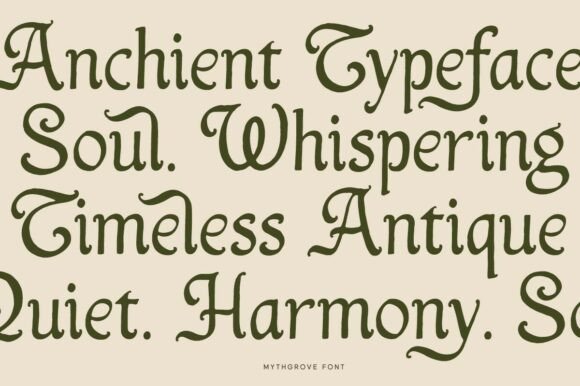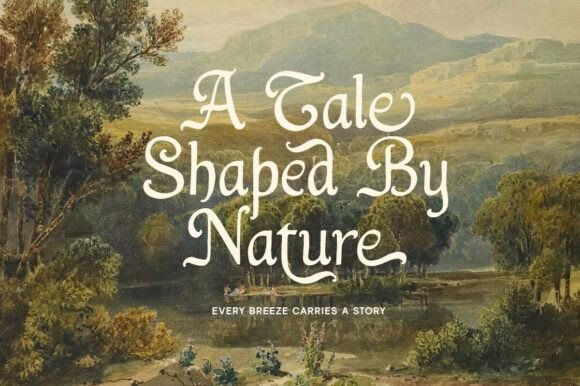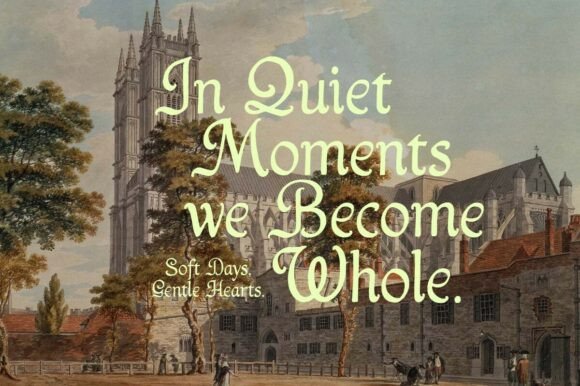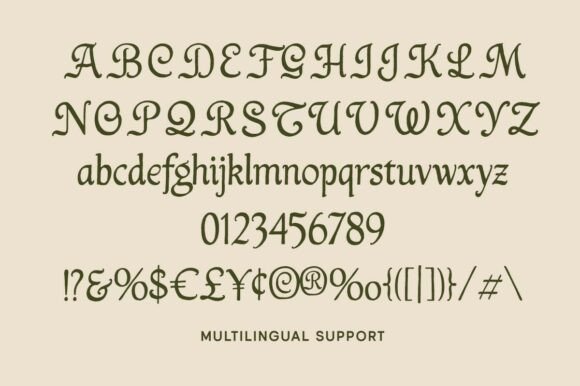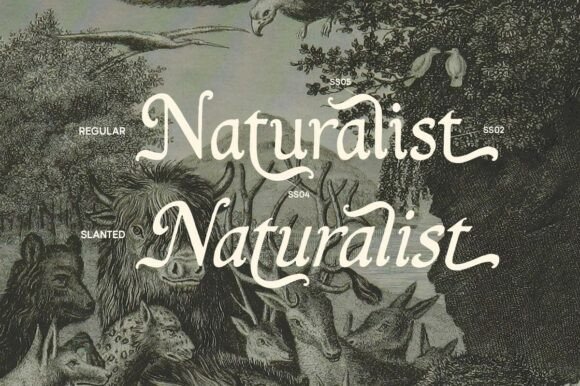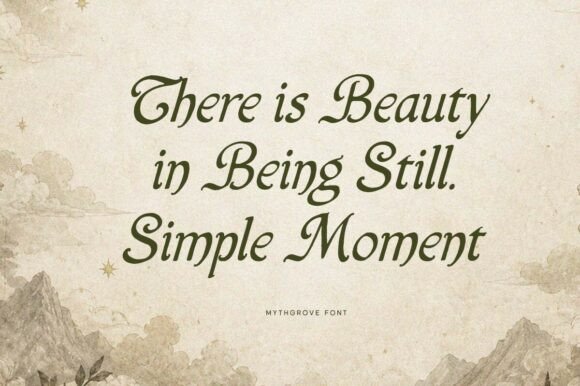
Introduction to Mythgrove Font
Mythgrove feels like an old story whispered through ancient forests, blending antique hand-drawn shapes with soft fantasy curves and gothic vintage charm.
The letters carry a magical medieval touch while still feeling playful and readable, making every word look rich with mystery and adventure .